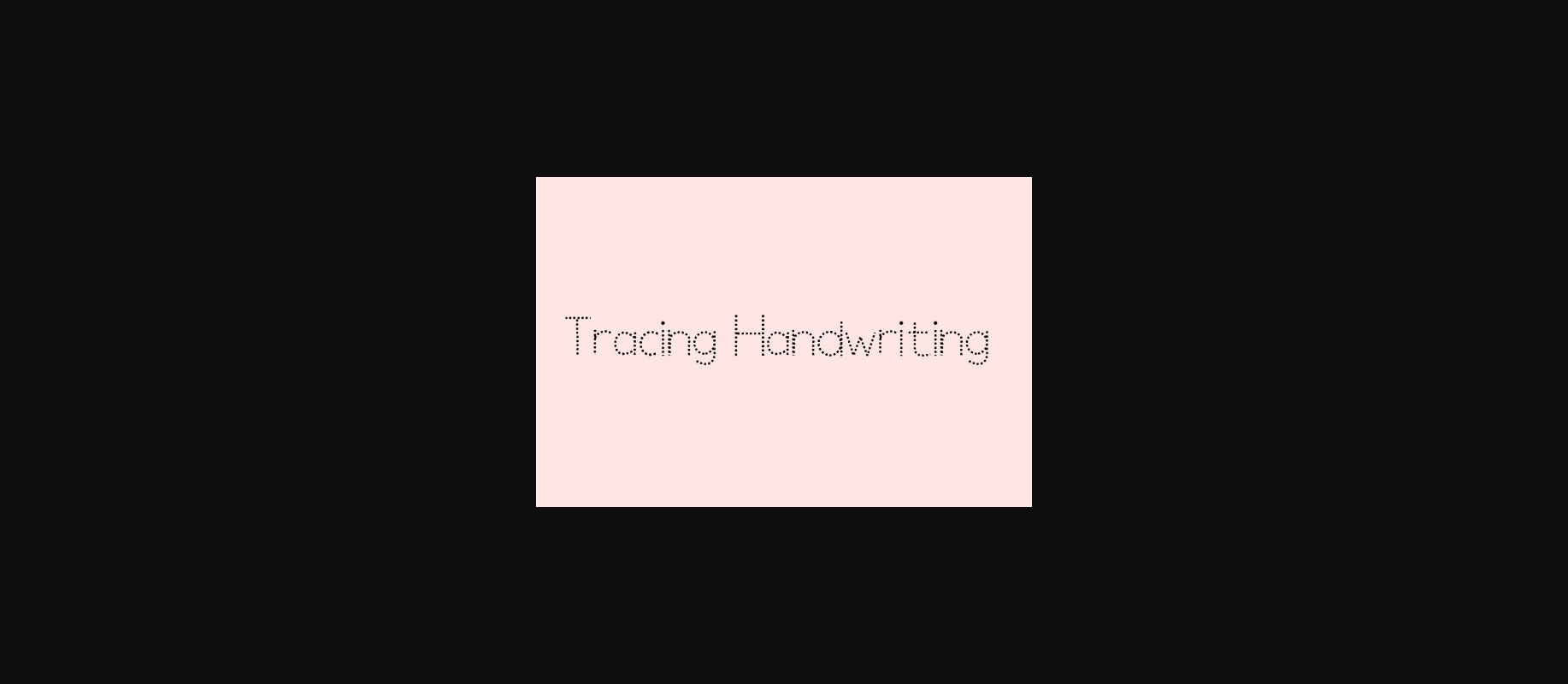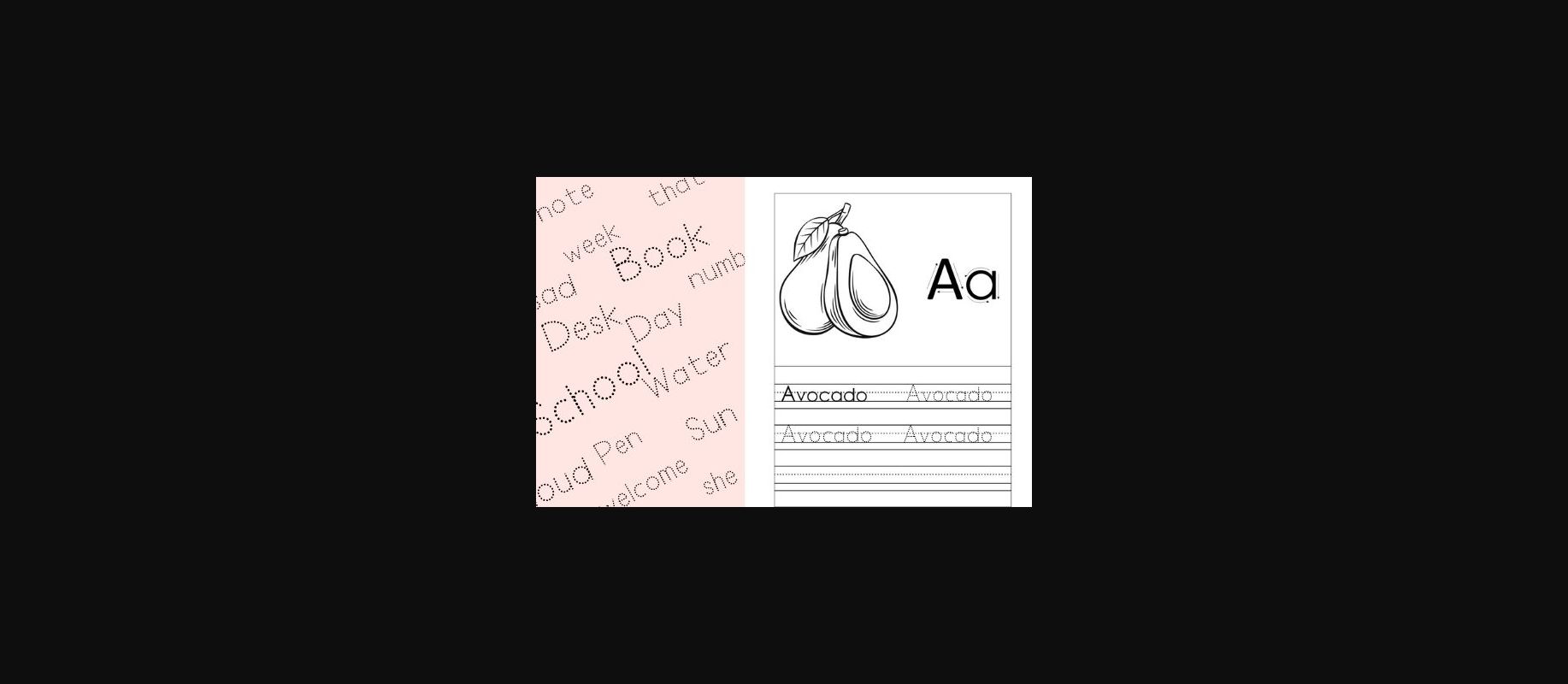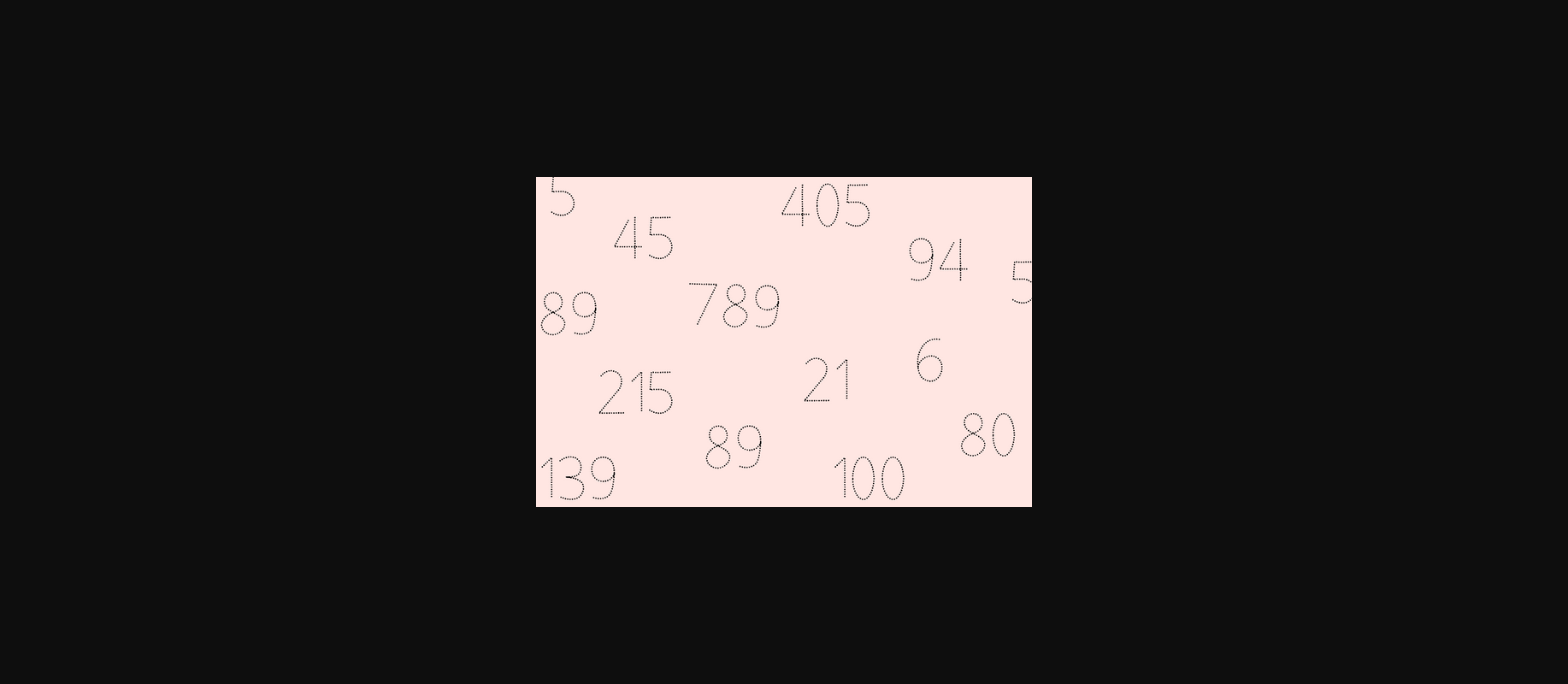
Tracing Handwriting Font
About Tracing Handwriting Font
Tracing Handwriting is a cool and unique dotted decorative font. This original look will appeal to a wide range of crafty ideas, from letterheads and titles, to stationery.